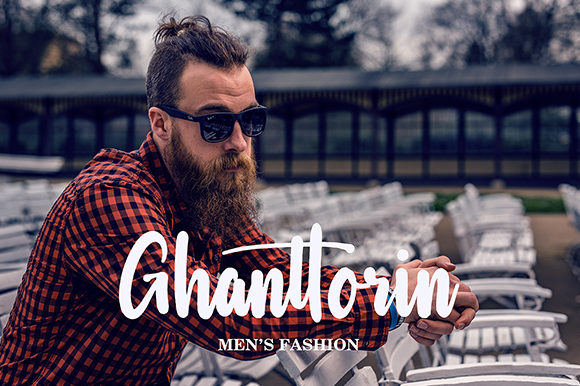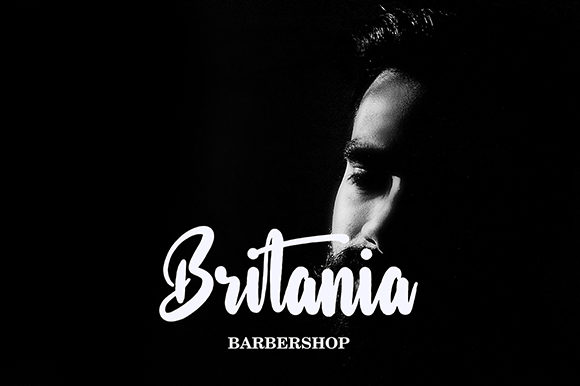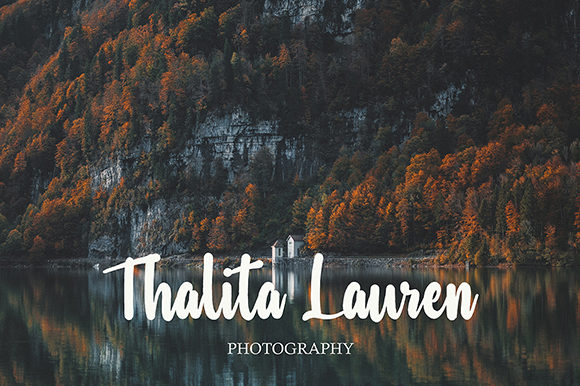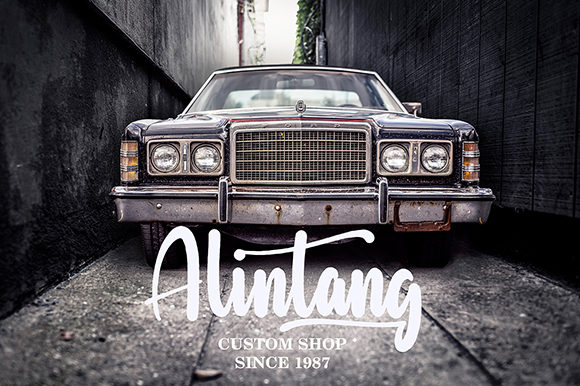
Britagia Font
About Britagia Font
Britagia is a cute and authentic handwritten font with a smooth feel. It will turn any design project into a stunner.